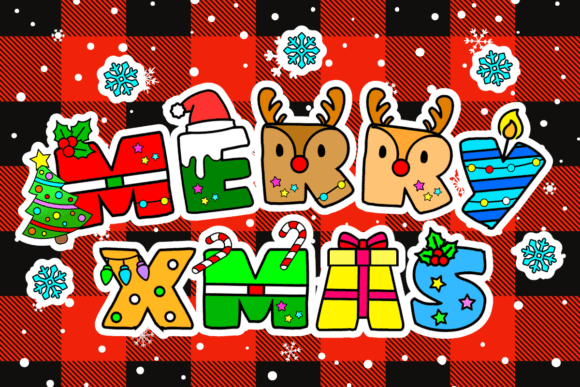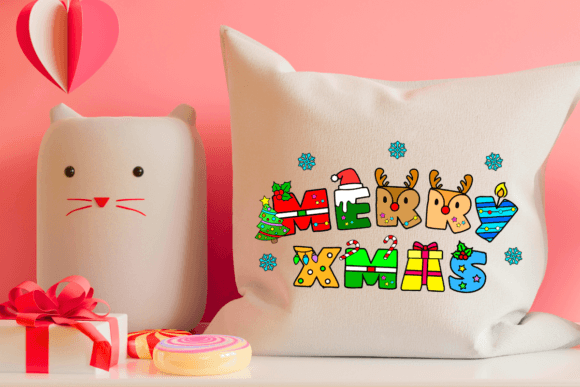
Merry Xmas Font
Merry Xmas is a delightful and playful decorative font, perfect for adding a touch of charm to your holiday projects. With its cute and cheerful style, it’s ideal for creating festive greetings, decorations, and invitations. Spread the joy of the season with Merry Xmas, a font that captures the spirit of Christmas in every letter.